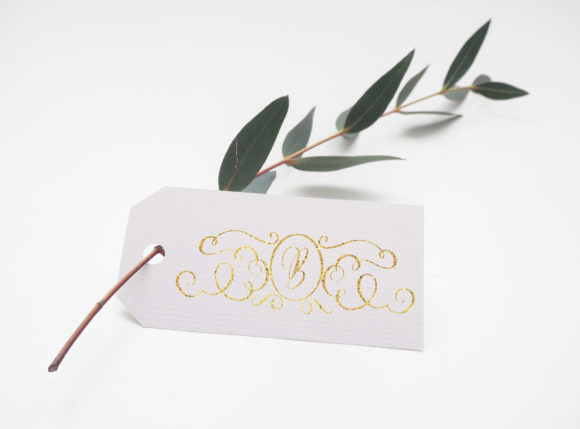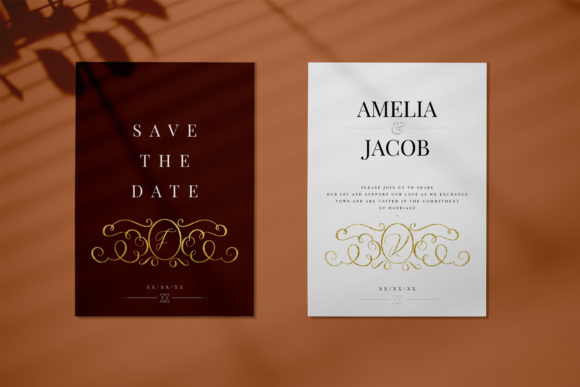
Introduction to Decorative Monogram Font
As I sat at my desk, surrounded by scraps of paper and half-finished projects, I stumbled upon a font that stole my heart – the Decorative Monogram Font. Its intricate details and delicate curves instantly sparked a wave of creativity within me, and I couldn’t wait to bring this beautiful font to life in my next design project.
For designers, finding the perfect font can be a game-changer. It’s what takes a good design to great, and the right choice can elevate even the most mundane project into a stunning work of art. And that’s exactly what the Decorative Monogram Font does – it adds a touch of elegance and sophistication to any design, making it a valuable resource for any creative project.
With its high-quality design and transparent background, this font is perfect for a variety of uses, from love letters and wedding invitations to custom designs and branding materials. And the best part? It’s available for free download, making it a must-have for any designer looking to add a little extra magic to their work.
Key Features of Decorative Monogram Font
- High-quality design resource ideal for creative projects, such as invitations, certificates, and personalized gifts.
- Comes with a transparent background, making it easy to integrate into various design elements.
- Includes a range of customizable monogram designs, from classic to modern styles.
- Perfect for designers and crafters seeking a unique and eye-catching font for their next project.
Honest Review: Decorative Monogram Font
I recently stumbled upon the Decorative Monogram Font while searching for a design resource to enhance a creative project. This font is a game-changer for anyone looking to add a touch of elegance to their work. The high quality of the font is evident in its intricate details and beautiful lettering.
- What works well: ✨ The font is highly customizable, making it perfect for designers who want to add a personal touch to their work.
- What works well: ✨ The font is available in various styles, from formal to playful, giving designers a wide range of options to choose from.
However, I did encounter a few limitations ⚠️. The font can be quite large in file size, which may slow down design work. Additionally, some users may find the font to be too ornate, making it difficult to read.
Overall, I’m impressed with the Decorative Monogram Font. It’s a great addition to any designer’s toolkit, and its high quality and versatility make it a worthwhile investment. With a little practice, designers can unlock the full potential of this font and create stunning designs that are sure to impress.
The Decorative Monogram Font is a high-quality design resource perfect for adding a touch of elegance to your creative projects. With its unique and intricate design, this font is ideal for personalizing invitations, business cards, and other custom materials.
The Decorative Monogram Font is commonly used for:
- Personalized invitations and wedding stationery
- Business cards and company branding
- Custom graphics and logos
- Special occasion decorations and party invitations
Yes, the Decorative Monogram Font is available with a transparent background, making it easy to use in designs that require a clear background. This feature is particularly useful for creating custom logos and graphics.